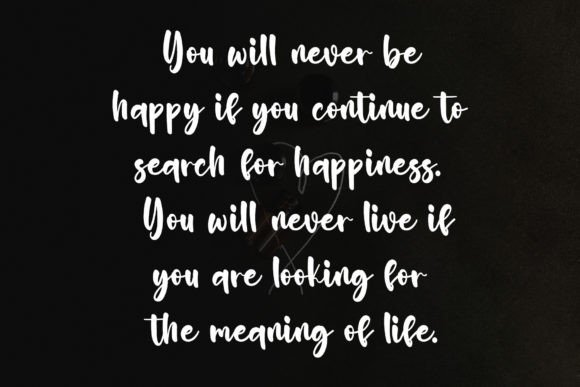
Stylish Writing Font
Immerse yourself in the delightful charm of ‘Stylish Writing’, a captivating handwritten script font. Its graceful demeanor exquisitely enhances diverse design concepts. Inject an element of joy and romantic allure to your projects with this beautiful font, adding a unique and personal touch to each creative endeavor. Experience the allure of ‘Stylish Writing’, where elegance meets whimsy in each delightful stroke.